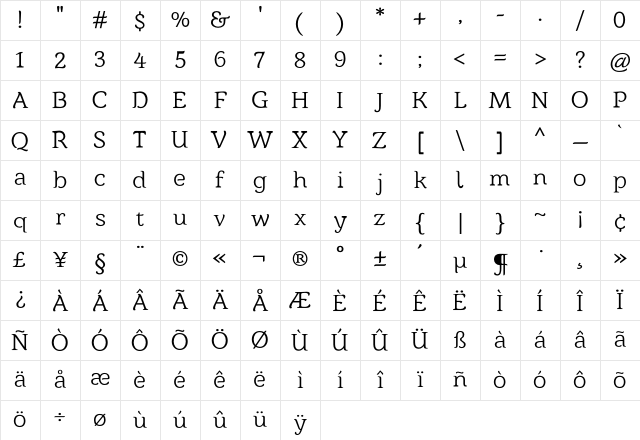
Complete Barkentina Test Regular glyph index. Displaying only characters natively supported by Barkentina Test Regular font.
Barkentina Test is a composed and adaptable typeface that performs quietly and consistently across a wide range of design contexts.